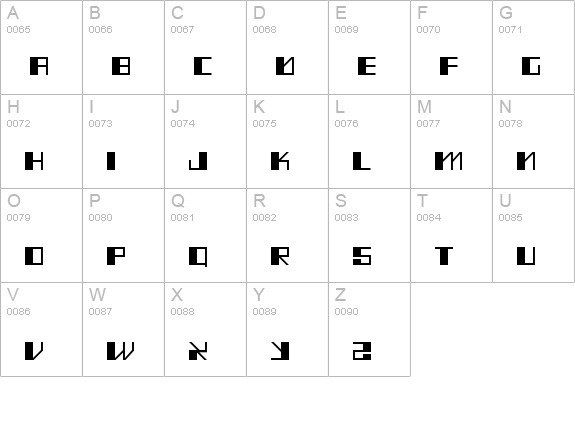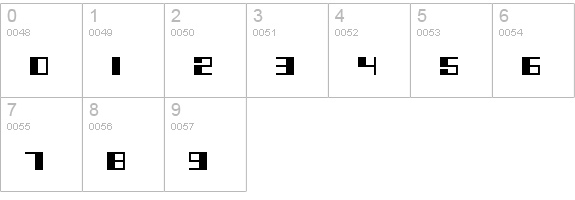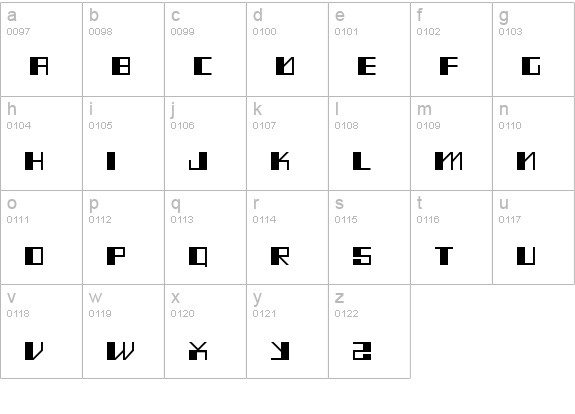
Mad Meka font is a bold and edgy typeface that exudes a sense of futuristic power and energy. Its sharp lines and angular shapes give it a modern and dynamic look, making it perfect for designs that demand attention. Whether you're working on a poster, logo, or website, Mad Meka font will make your text stand out with its unique style.